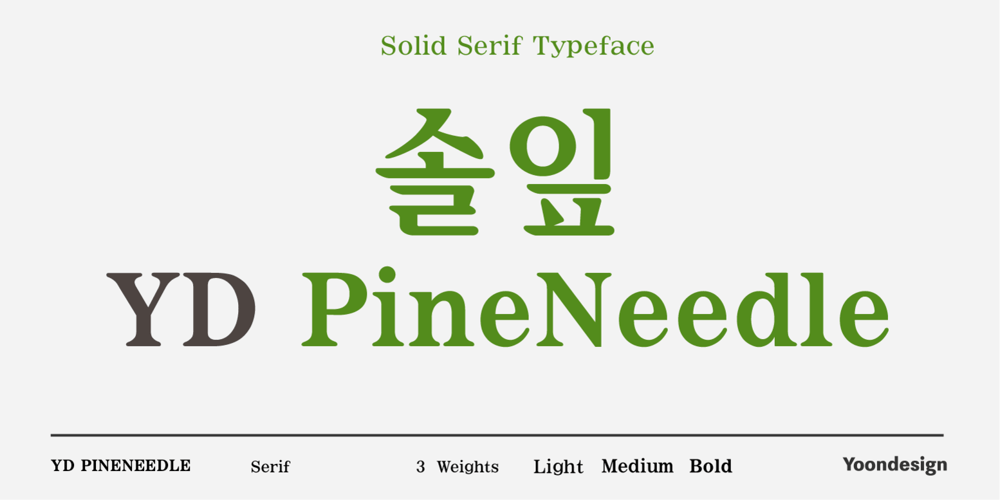
YD PineNeedle
YD PineNeedle font
YD PineNeedle Font Family was designed by Yoon Design Team and published by Yoon Design. YD PineNeedle contains 3 styles and family package options. YD PineNeedle Family has been inspired by pine needles shape. Humanistic curves of serifs and horizontal strokes betray sensitively and artistry nature of Pine Tree. YD PineNeedle Family comes in 3 weights from light to bold. Also it can be used posters and every kind of graphic design works.